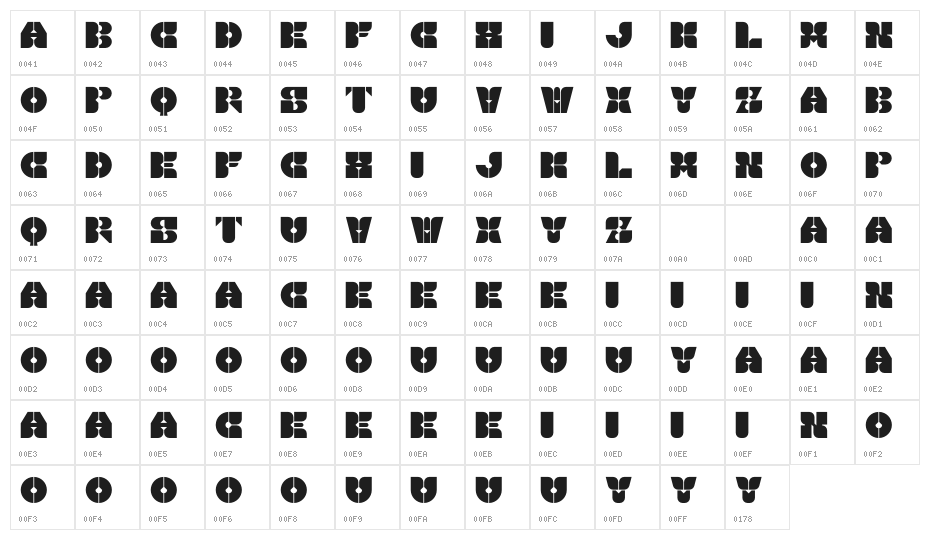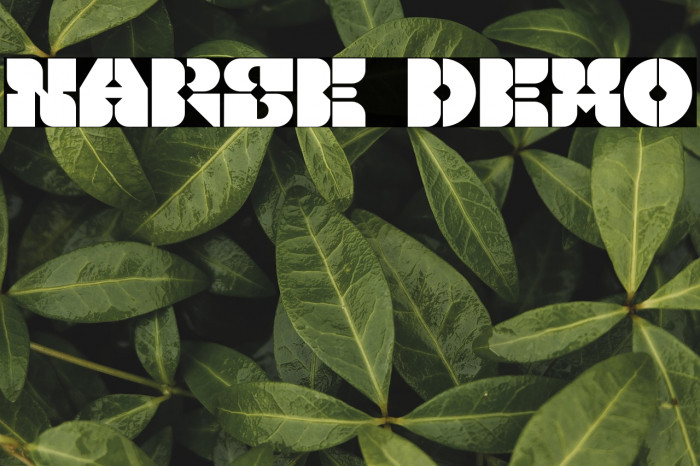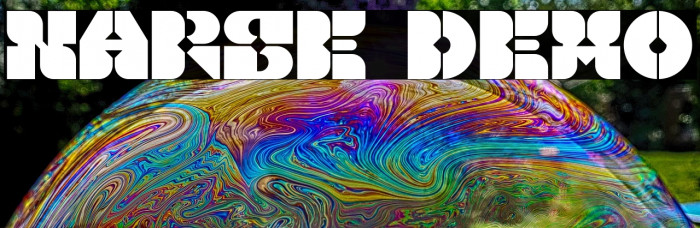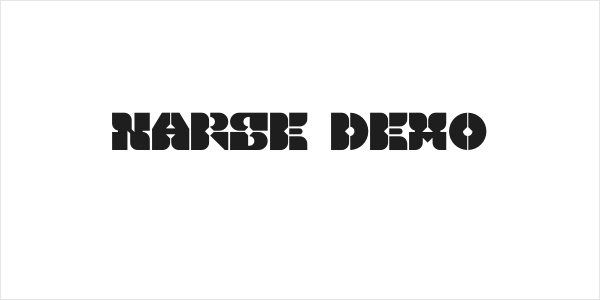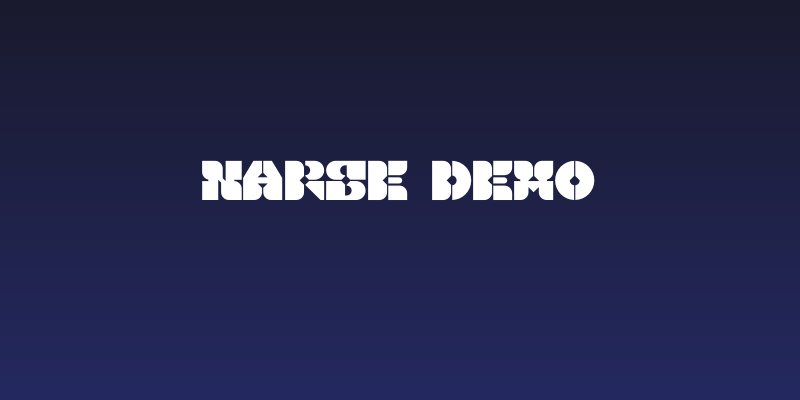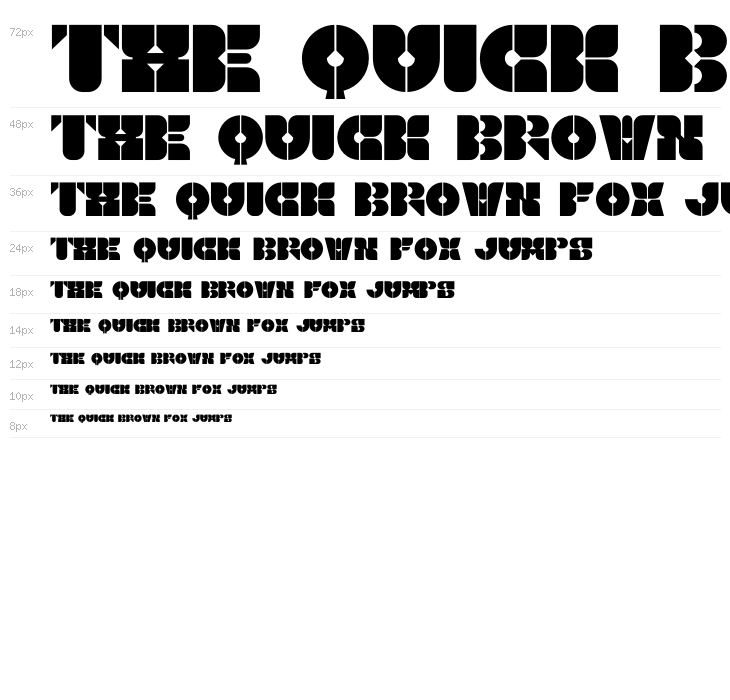
Narse Demo Font
Narse Demo Description
This font exhibits a bold and geometric style, characterized by its thick, block-like letters with rounded edges. The design is highly stylized, featuring a modern and futuristic aesthetic that is both eye-catching and distinctive. The uppercase letters are uniform in height, creating a cohesive and structured appearance. The font's unique design elements, such as the use of negative space and symmetrical shapes, contribute to its striking visual impact. It is well-suited for projects that require a strong and memorable typographic presence.
| Proposed Projects | Ideal for branding, posters, headlines, and any design requiring a strong visual impact. |